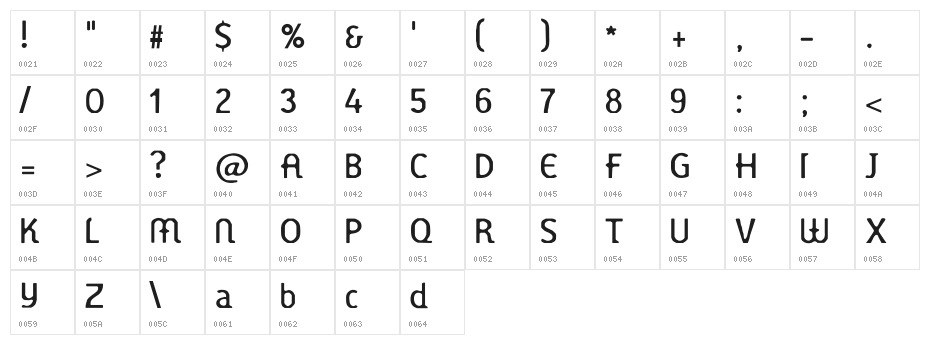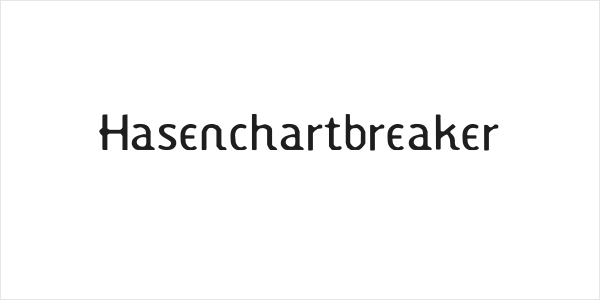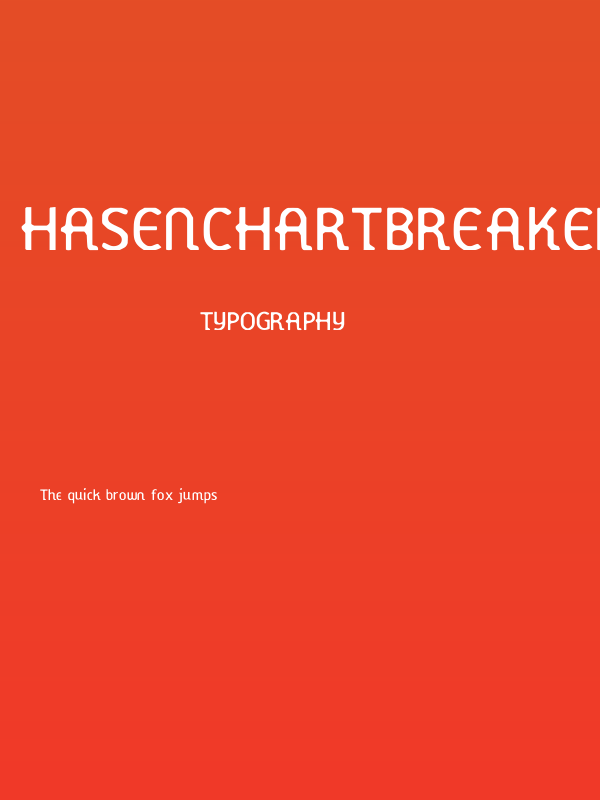
Hasenchartbreaker Font
Hasenchartbreaker Description
This font features a unique blend of modern and vintage elements, characterized by its rounded edges and geometric shapes. The uppercase letters are bold and assertive, with a distinct curvature that adds a playful touch. The lowercase letters maintain a consistent style, offering a harmonious flow between characters. Numbers are clear and legible, designed with the same rounded aesthetic. Special characters are crafted with attention to detail, ensuring they complement the overall style. This font's design is both versatile and eye-catching, making it suitable for a variety of creative applications.